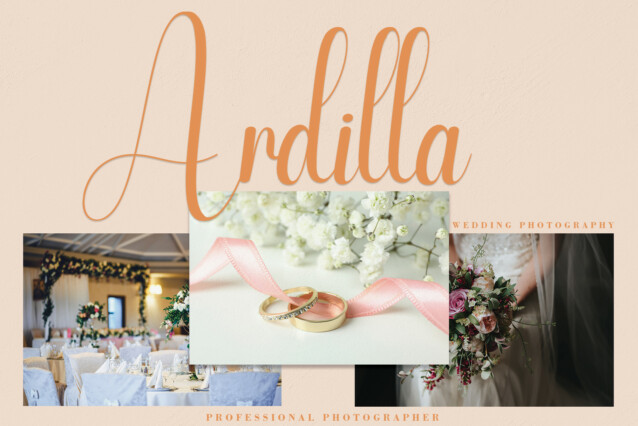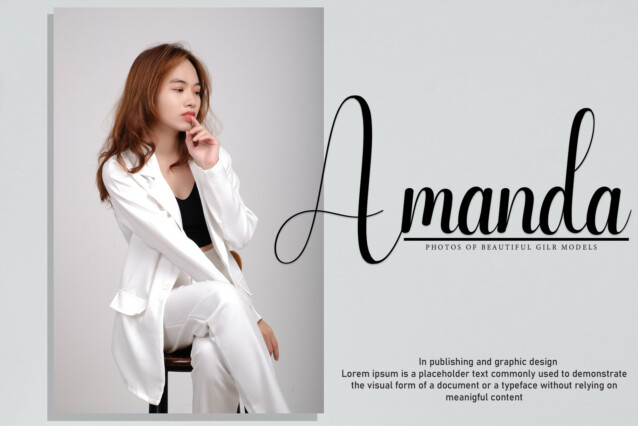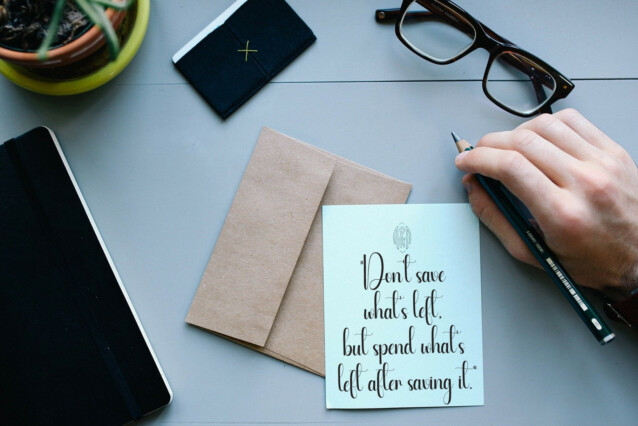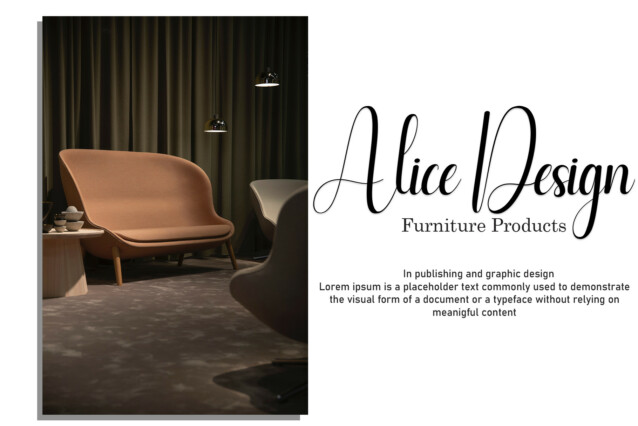
Union Cake Script Font is a sweet and friendly handwritten display font. Cute and fun, this font is ideal for writing wedding invitations, cards, or any other design that might need a playful touch!